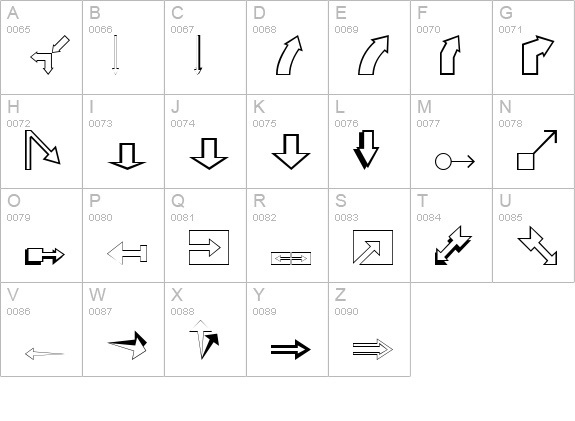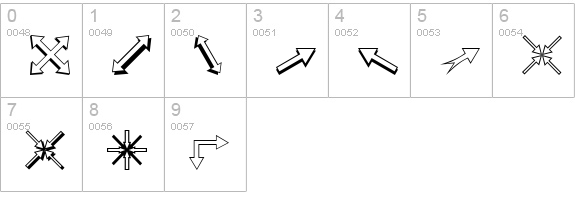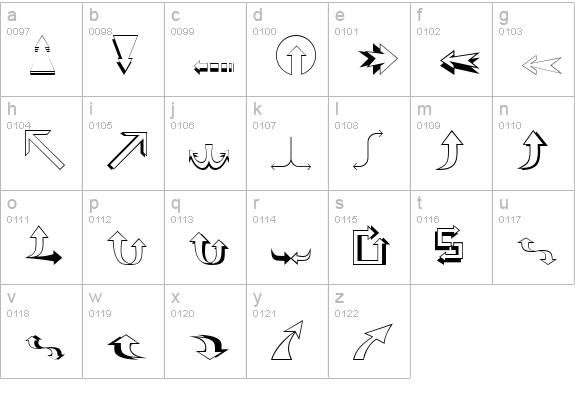
Carr Arrows (outline) Font Details
Introducing Carr Arrows, a sleek and modern font that adds a touch of sophistication to any design project. This unique typeface features intricate arrow-inspired details that make it stand out from the crowd. Perfect for logos, branding, headlines, and more, Carr Arrows is sure to make a bold statement. The best part? Carr Arrows is available for free download at FontsMarket.com. With its clean lines and stylish design, this font is a must-have for any designer looking to add a touch of elegance to their work. Download Carr Arrows today and take your designs to the next level!